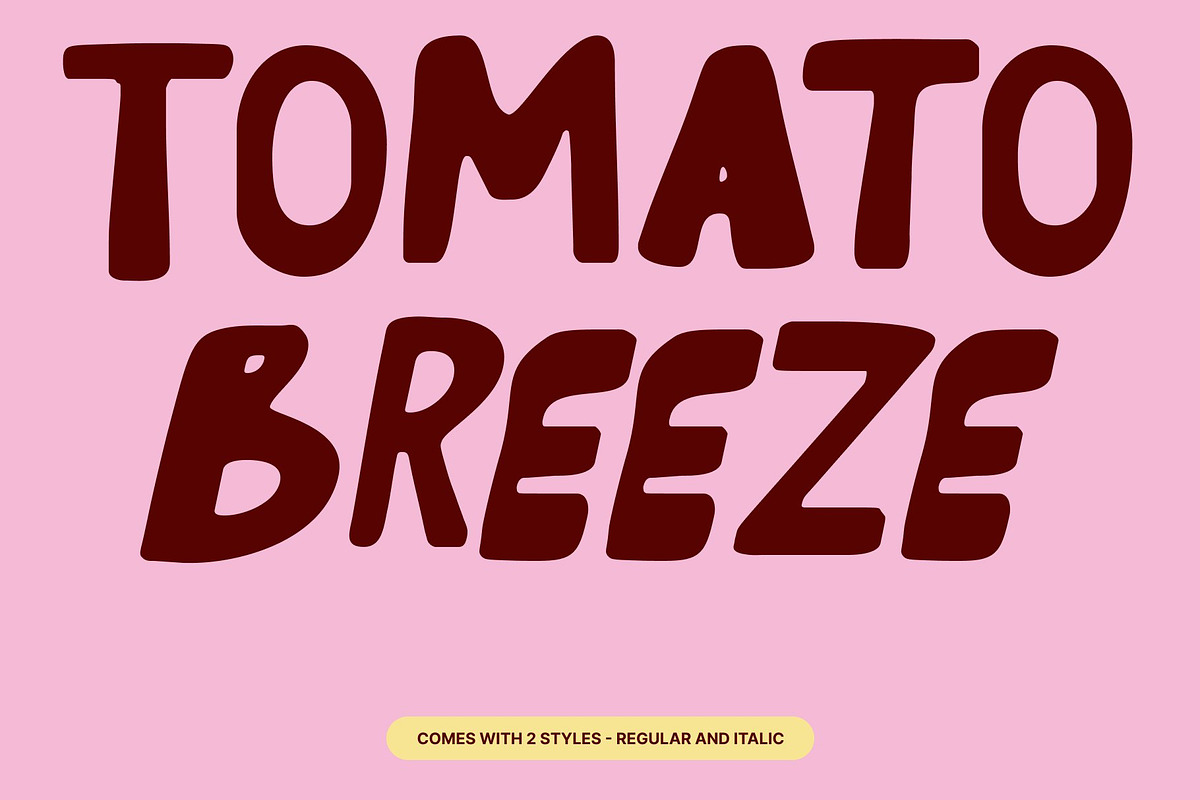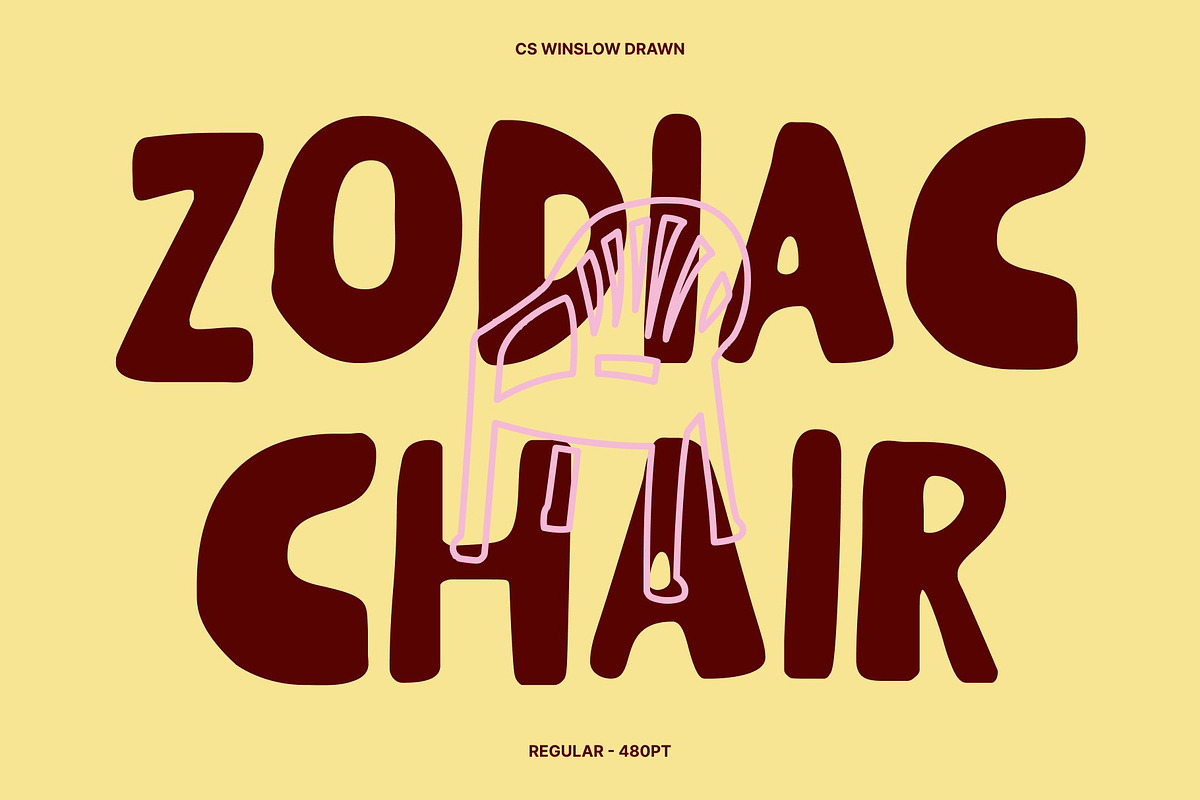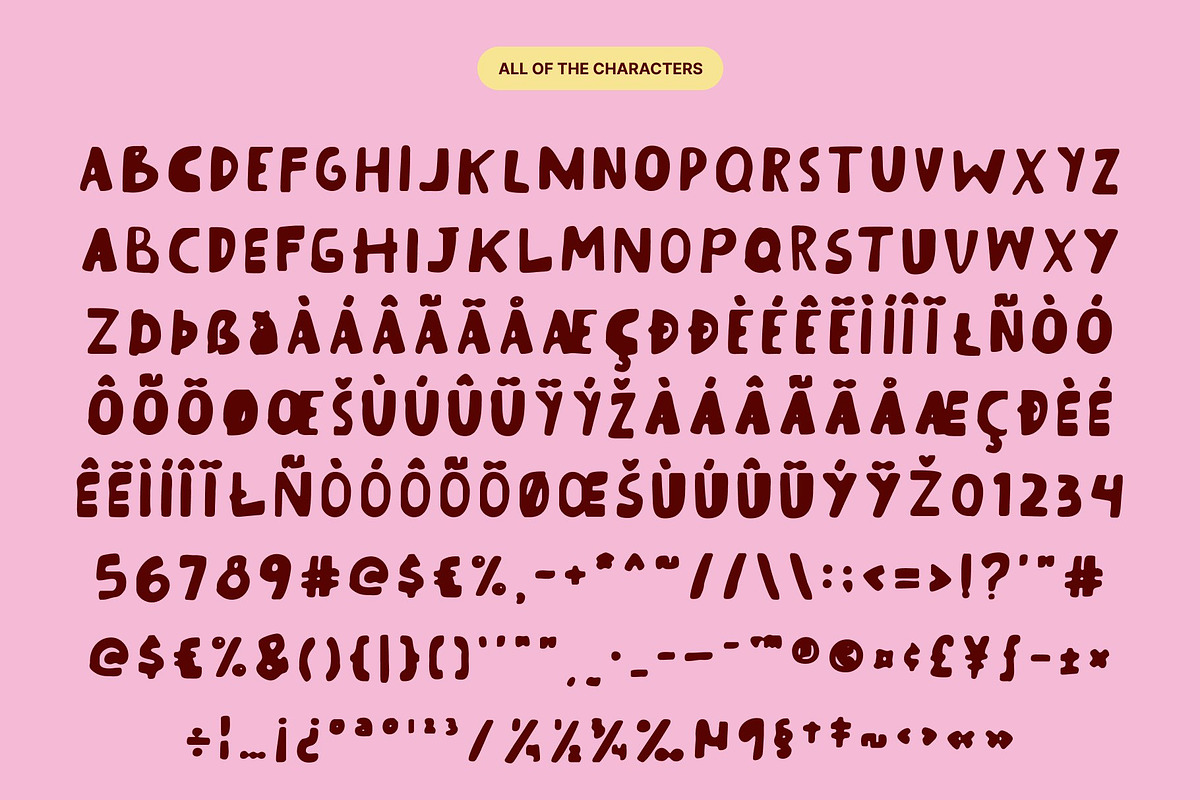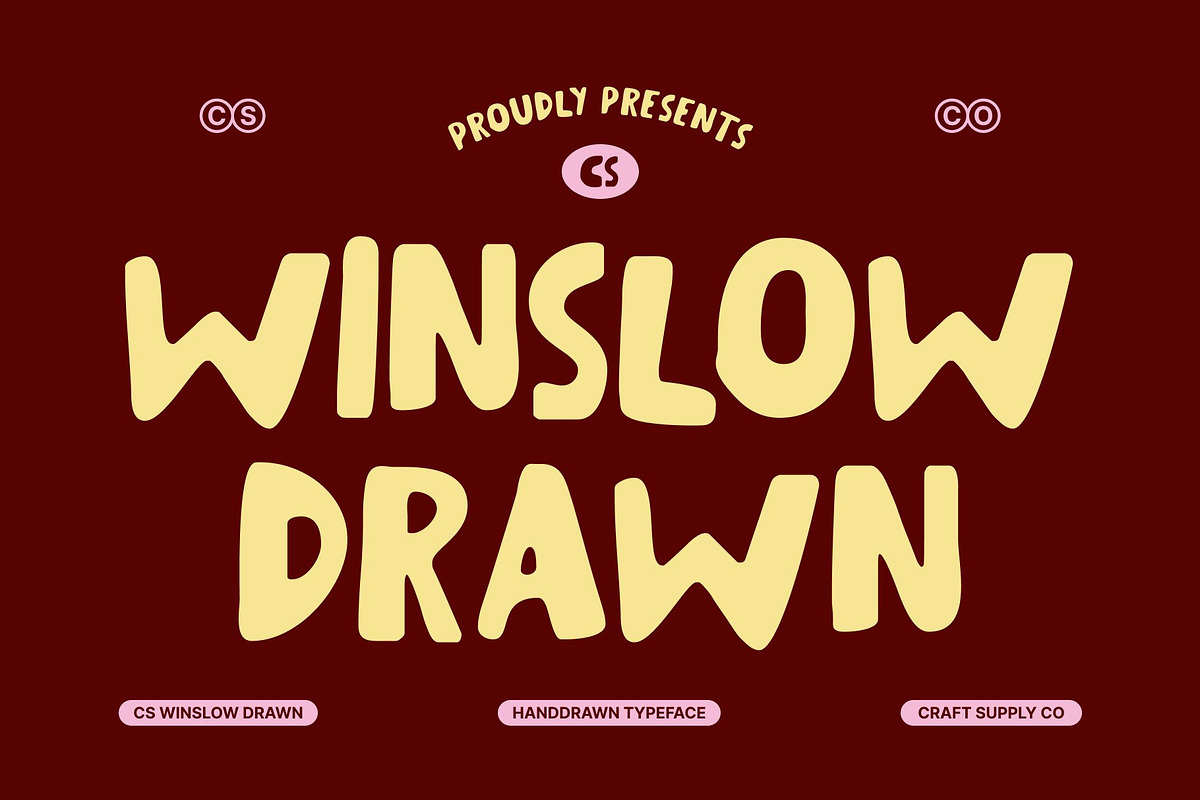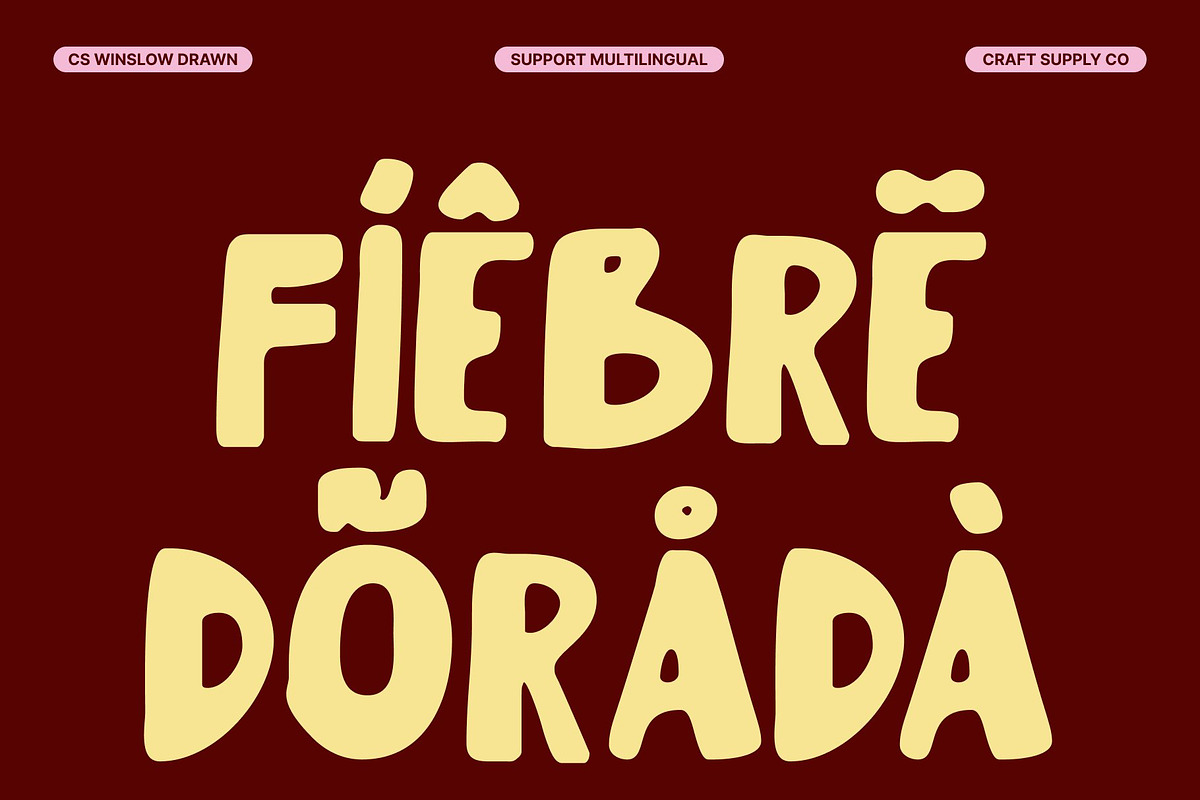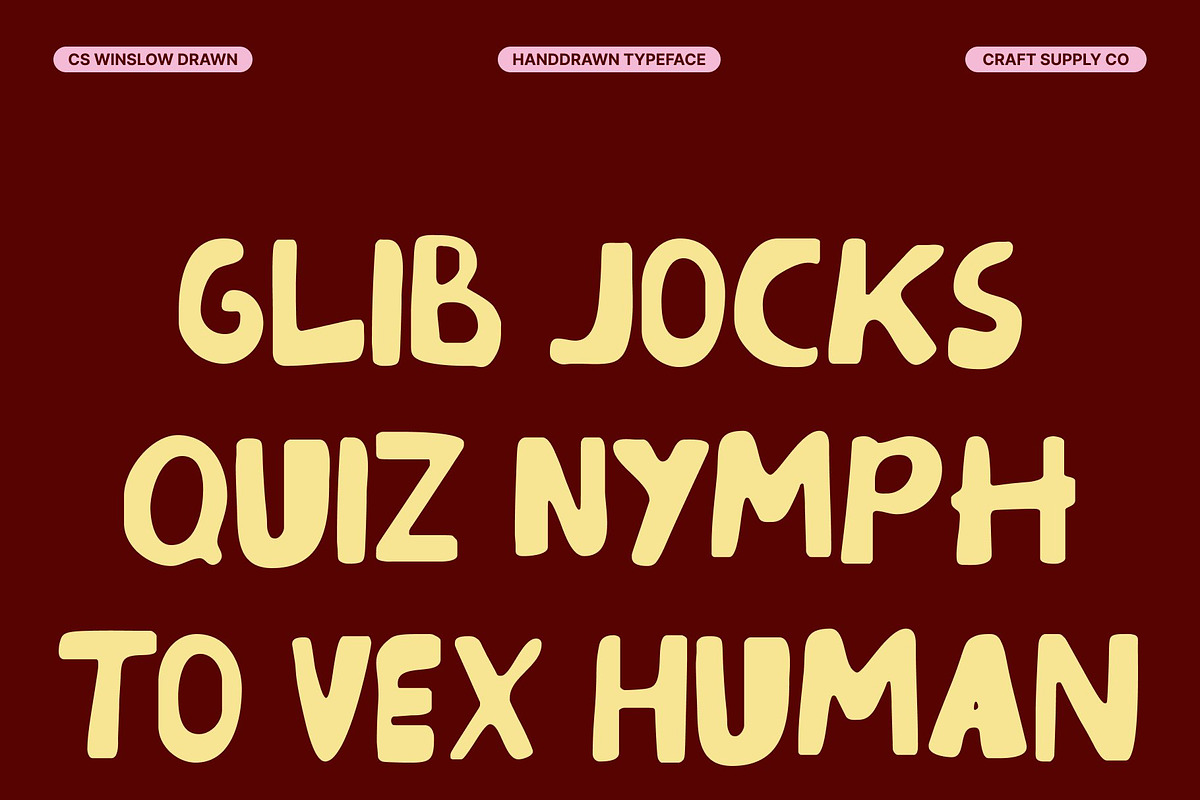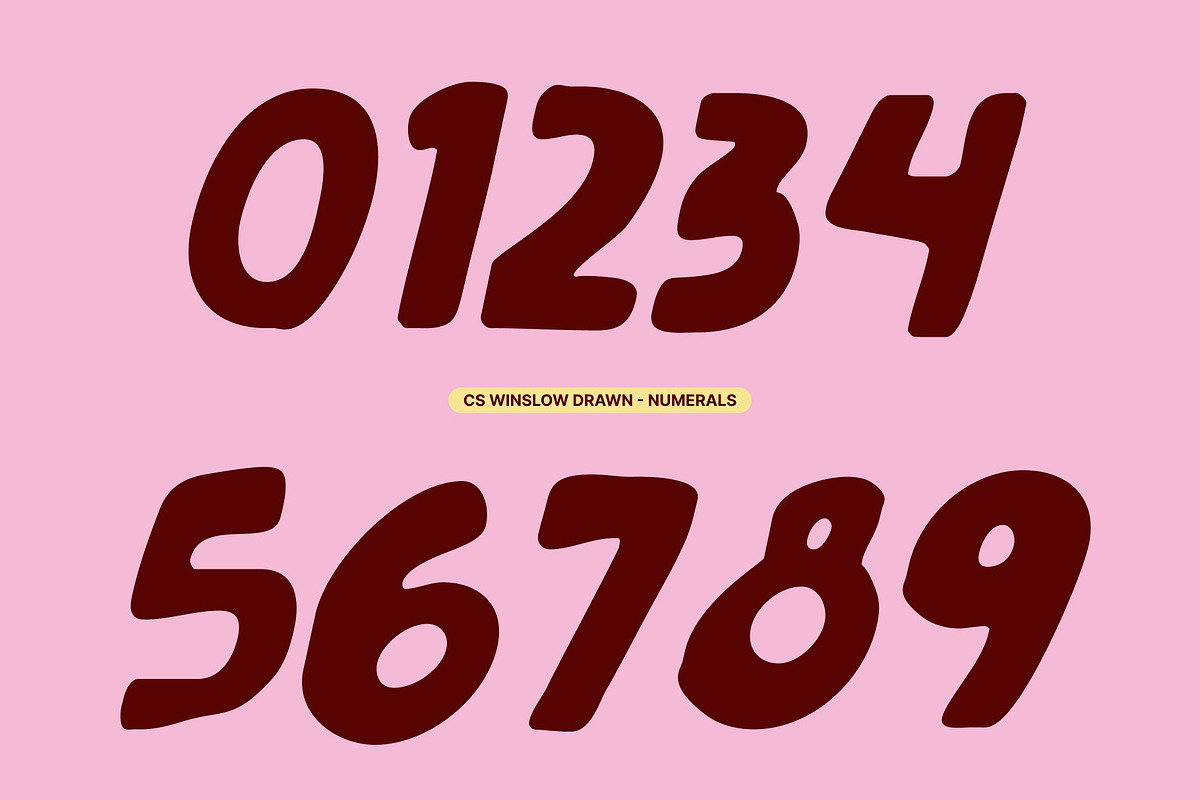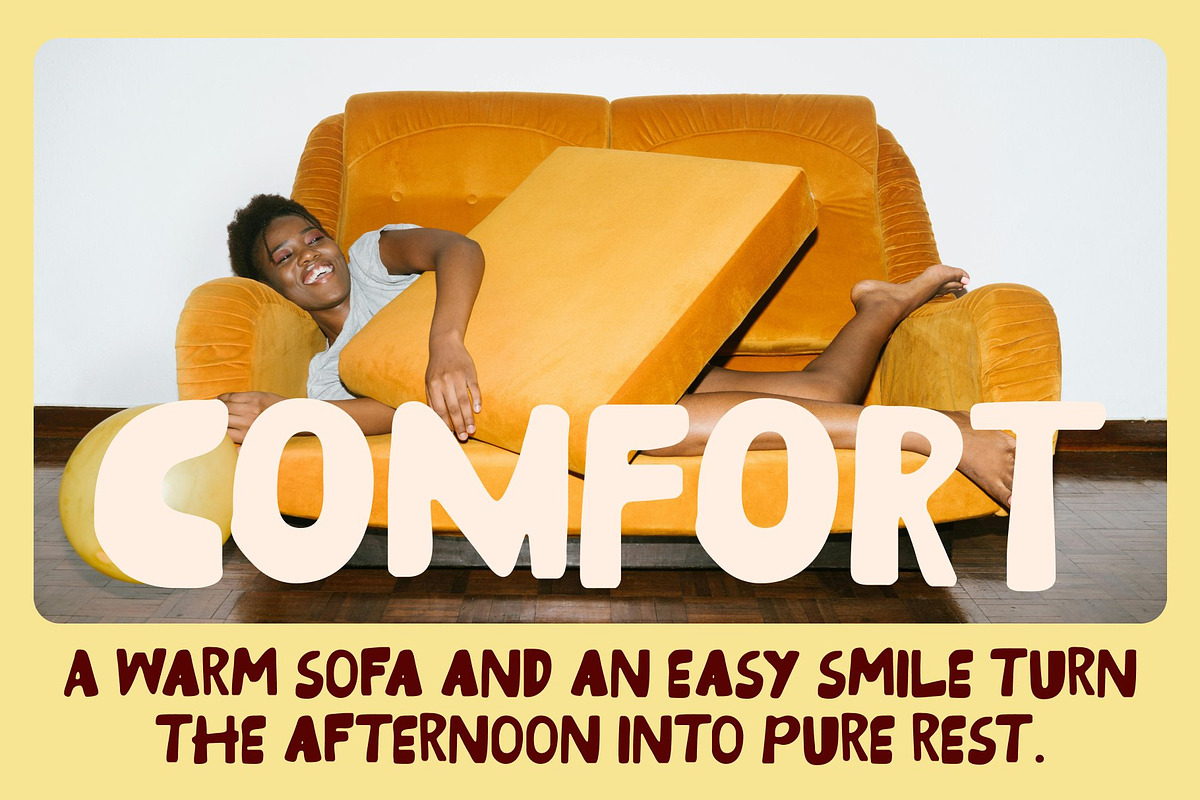
CS Winslow Drawn
CS Winslow Drawn – Bold Playful Display Font with Friendly Hand-Drawn Energy
Bold, Playful Style with Warm Personality This is a cheerful display font designed to bring joy, warmth, and personality to creative projects. Its bold strokes and rounded, friendly shapes create an inviting visual tone, while the drawn effect adds a lively, handcrafted feel. The result is typography that feels approachable, energetic, and full of charm.
Expressive Letterforms with Youthful Spirit Each character is built with smooth curves and expressive proportions that radiate fun and creativity. The hand-drawn nuances introduce subtle irregularities, giving the font a natural rhythm that feels youthful and dynamic without sacrificing clarity or impact.
Perfect for Youth Branding and Playful Visuals This font shines in youth-oriented branding, greeting cards, playful logos, children’s materials, and cheerful packaging. Its friendly forms help create an immediate emotional connection, making messages feel personal, upbeat, and memorable.
Versatile for Casual and Lighthearted Design From posters and social media graphics to product packaging and casual editorial layouts, this font adapts effortlessly. Its bold readability paired with a relaxed, joyful tone makes it a reliable choice for designers looking to inject positivity and character into their work.